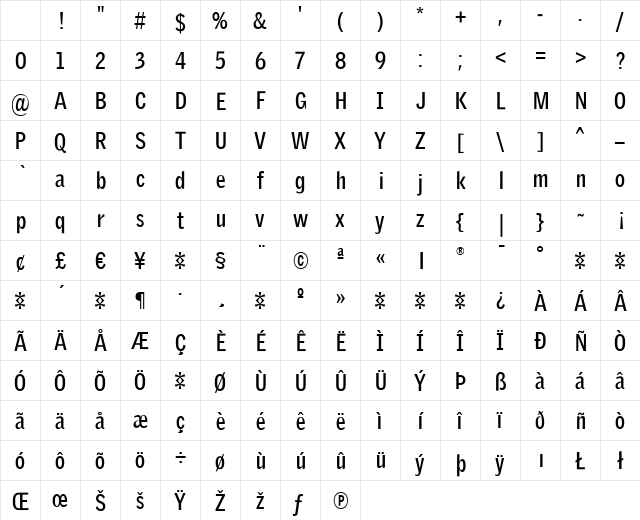
Complete GriffithGothic Cond Bold glyph index. Displaying only characters natively supported by GriffithGothic Cond Bold font.
GriffithGothic Cond takes a clean, functional approach - its unadorned letterforms prioritise legibility and work reliably across screen and print environments. Its bold stroke weight gives it real presence on the page. Its narrow stance lets it pack a punch even in space-constrained designs.
Font Pairing: Use GriffithGothic Cond for headlines alongside a lighter-weight sans or serif for body copy to establish clear visual hierarchy.
Pro Tip: Use GriffithGothic Cond tightly set in headlines and banners - its condensed proportions make it ideal for maximum impact in minimum horizontal space.